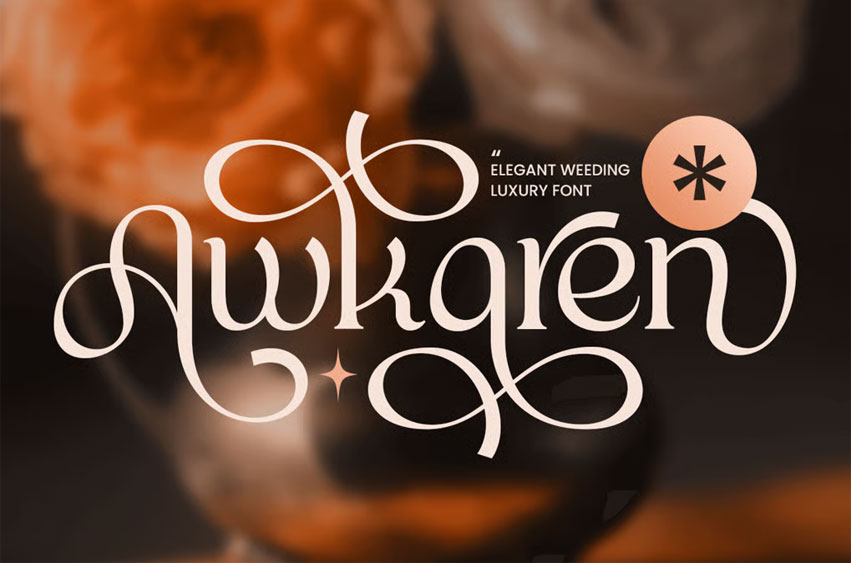
Awkaren Font
Awkaren Font is a luxury fashion brand font crafted for high-end logos, editorials, and premium branding projects. Its refined letterforms and timeless elegance make it ideal for fashion labels, lifestyle branding, packaging, and modern luxury designs.
With beautifully balanced strokes and graceful proportions, AWKAREN brings sophistication and exclusivity to both print and digital media, perfect for designers aiming to create a polished and fashionable identity.
AWKAREN – Luxury Fashion Brand Font Features
• Elegant and luxurious serif character set
• Perfect for fashion, branding, and editorial designs
• OpenType features for extra versatility
Define timeless elegance with AWKAREN – the ultimate luxury fashion brand font for sophisticated design.